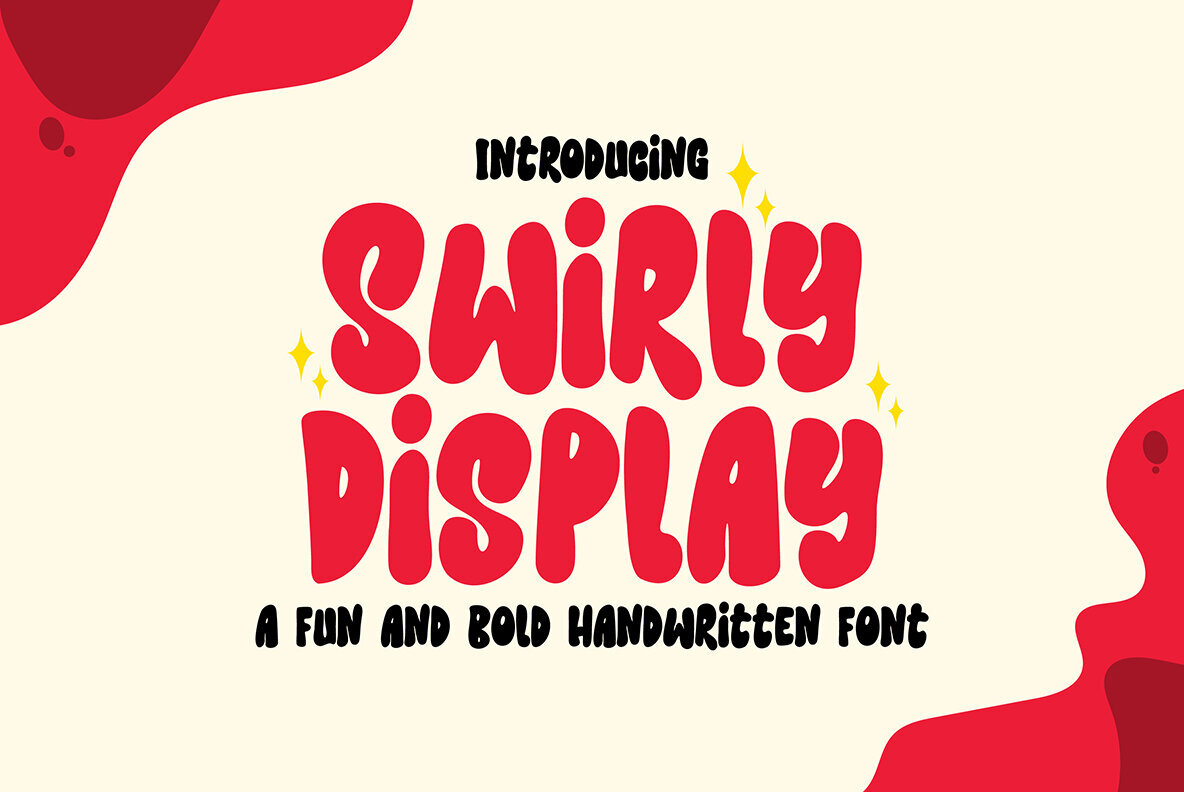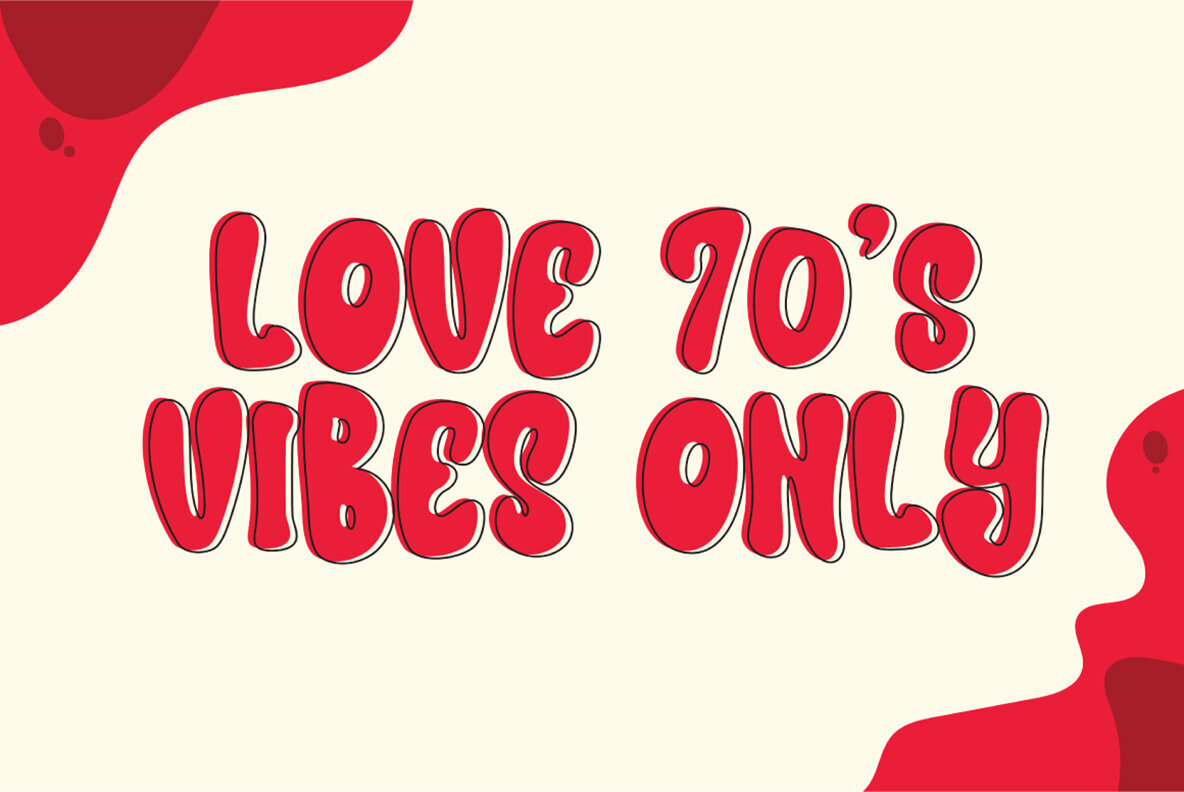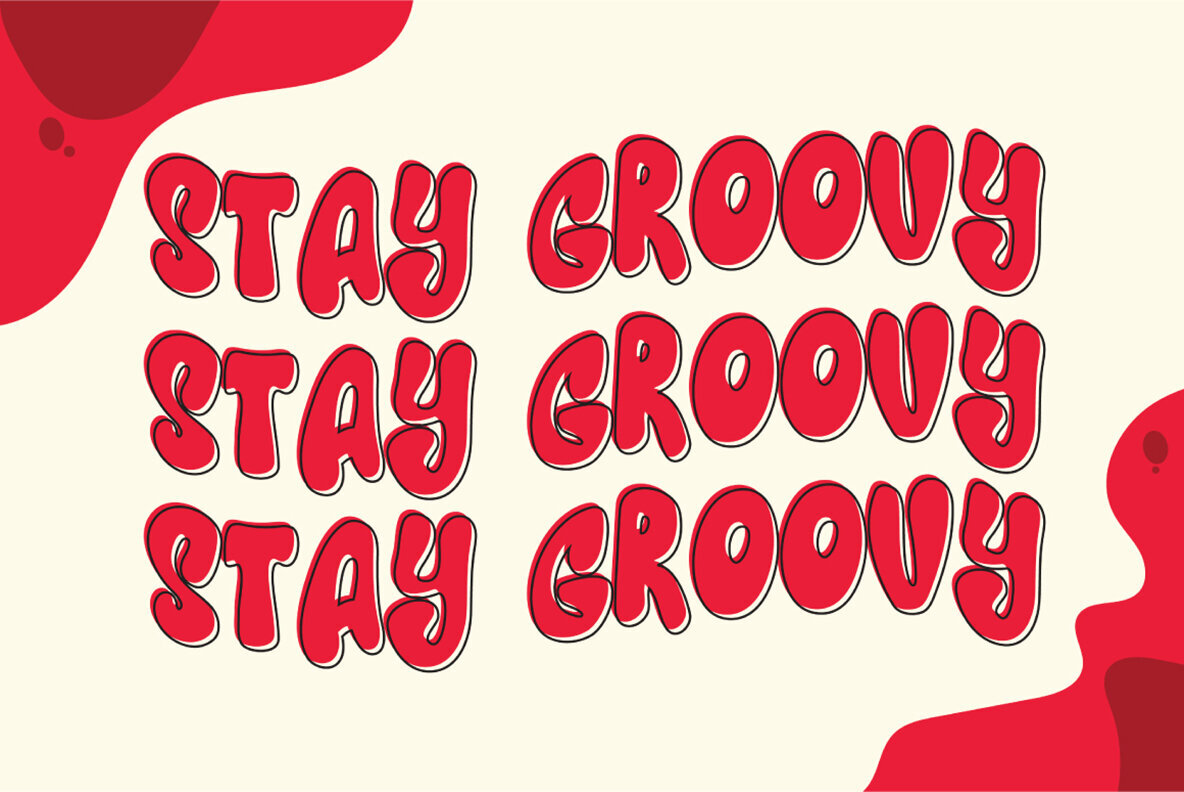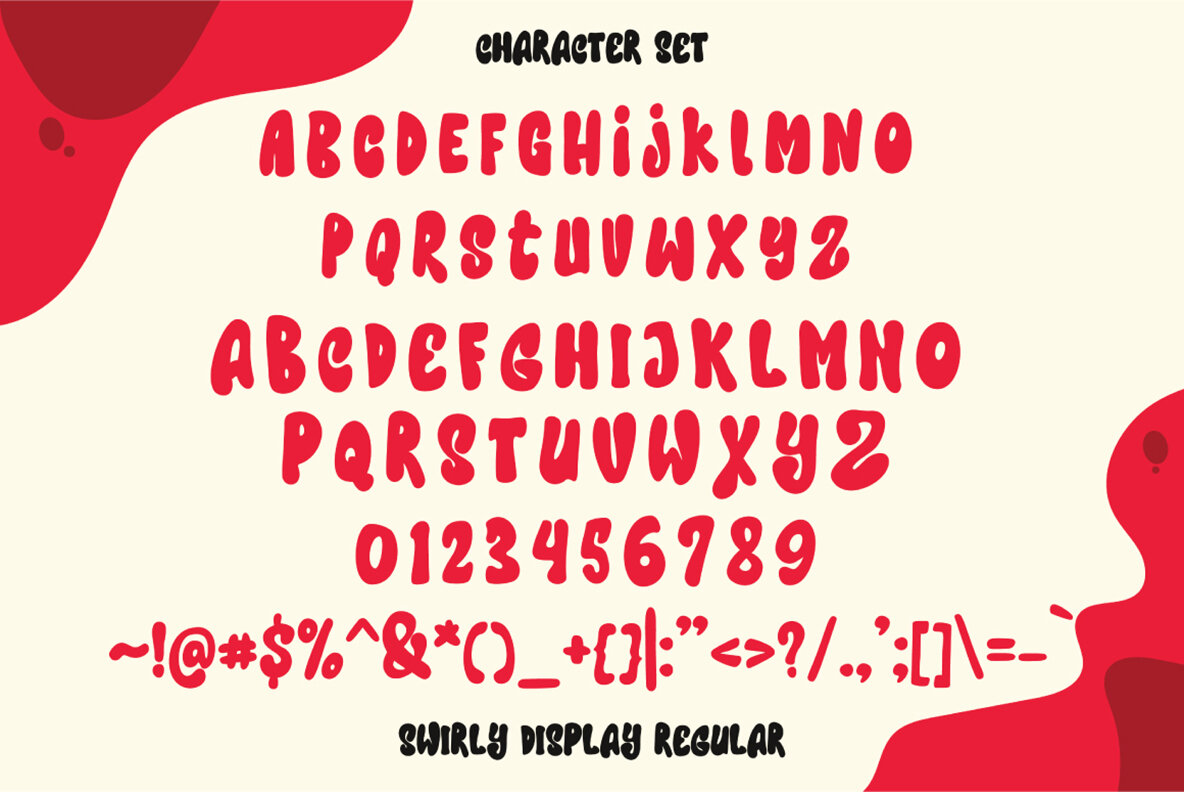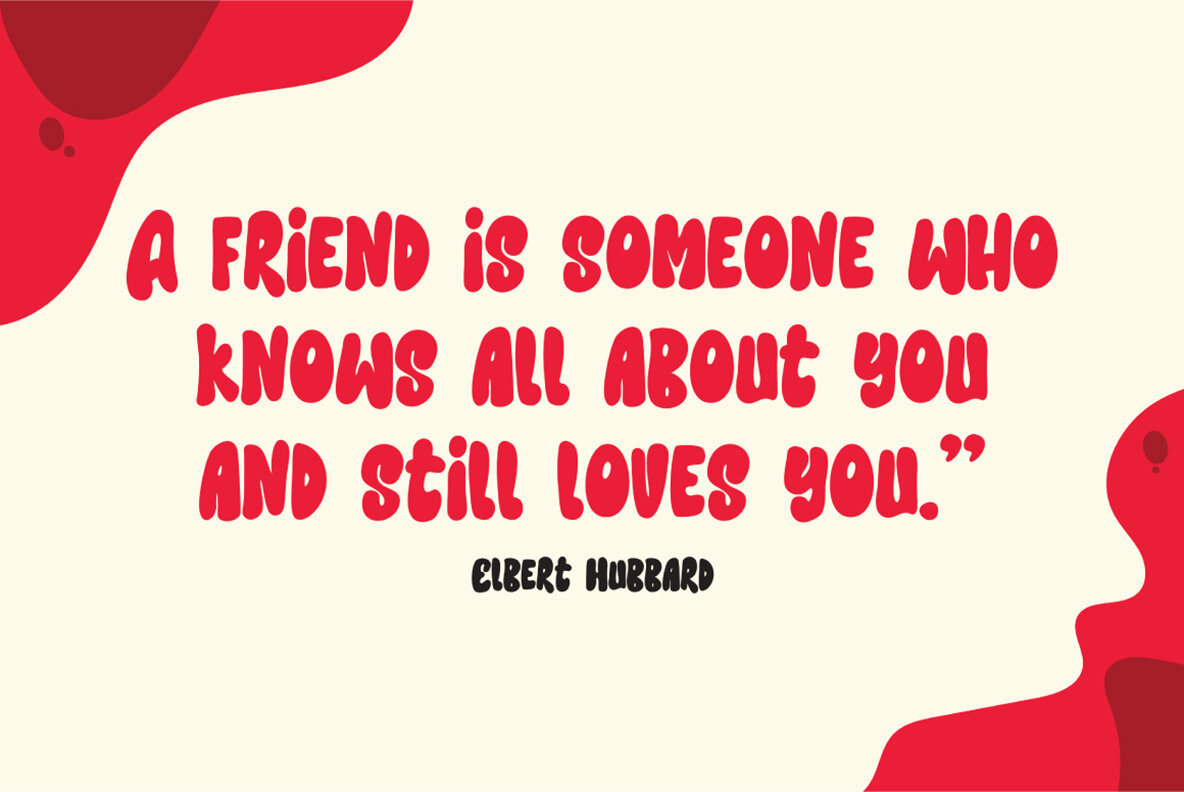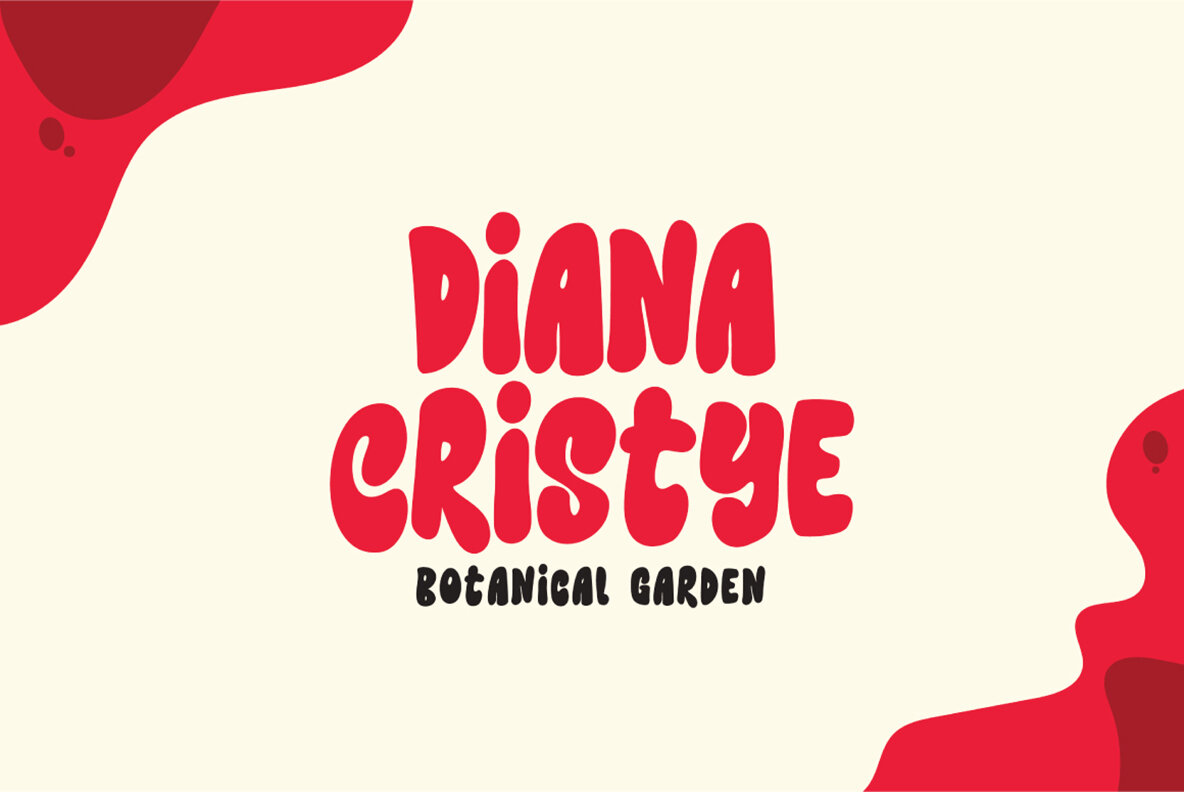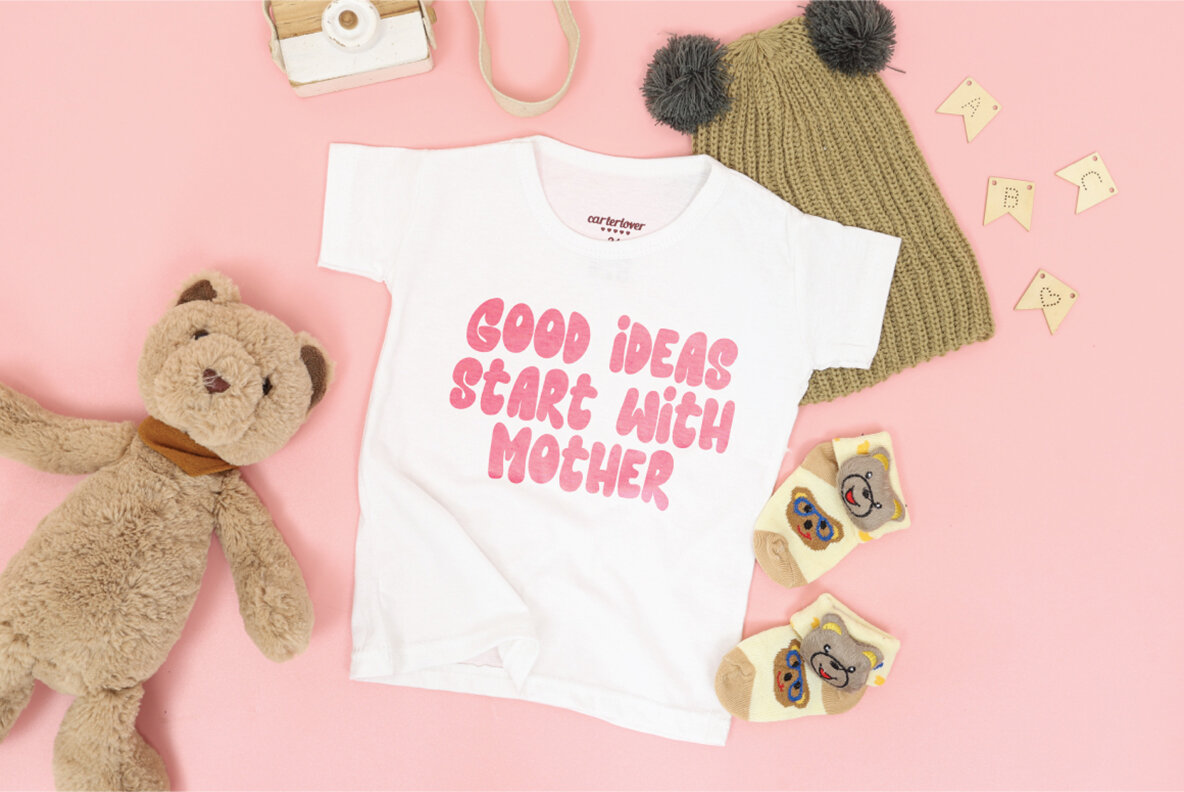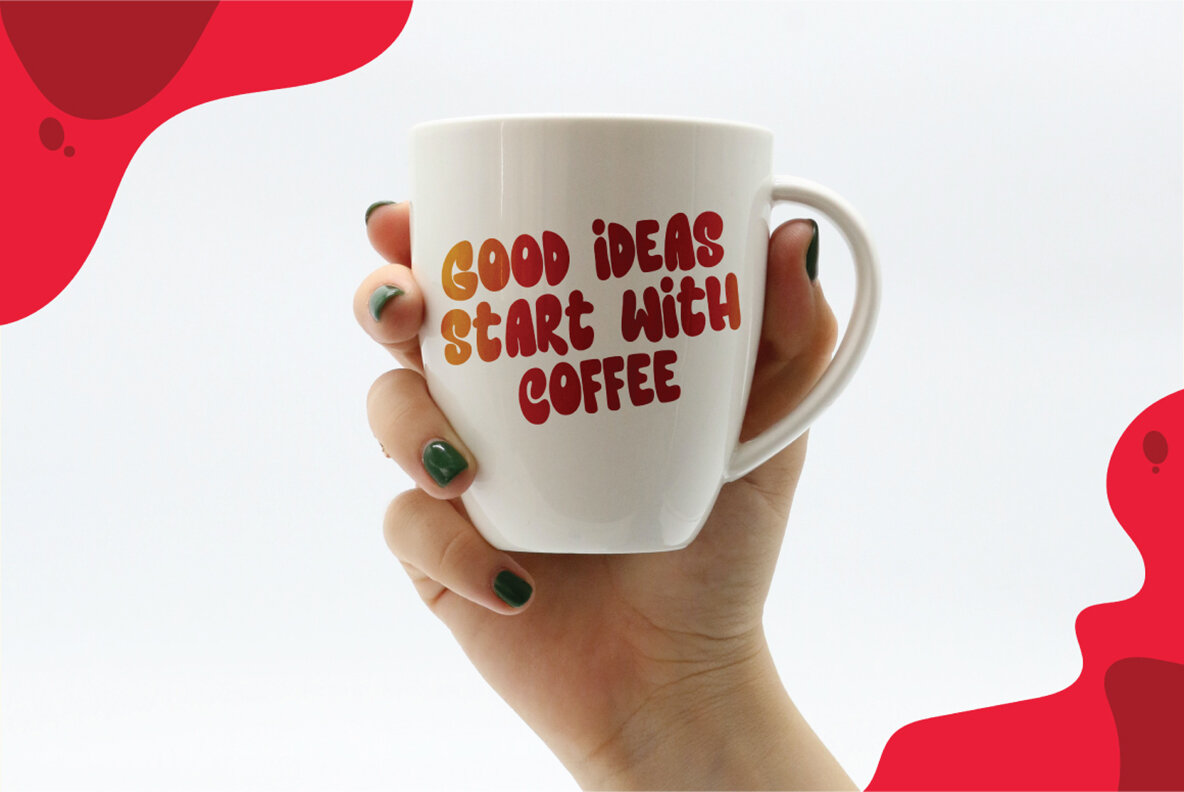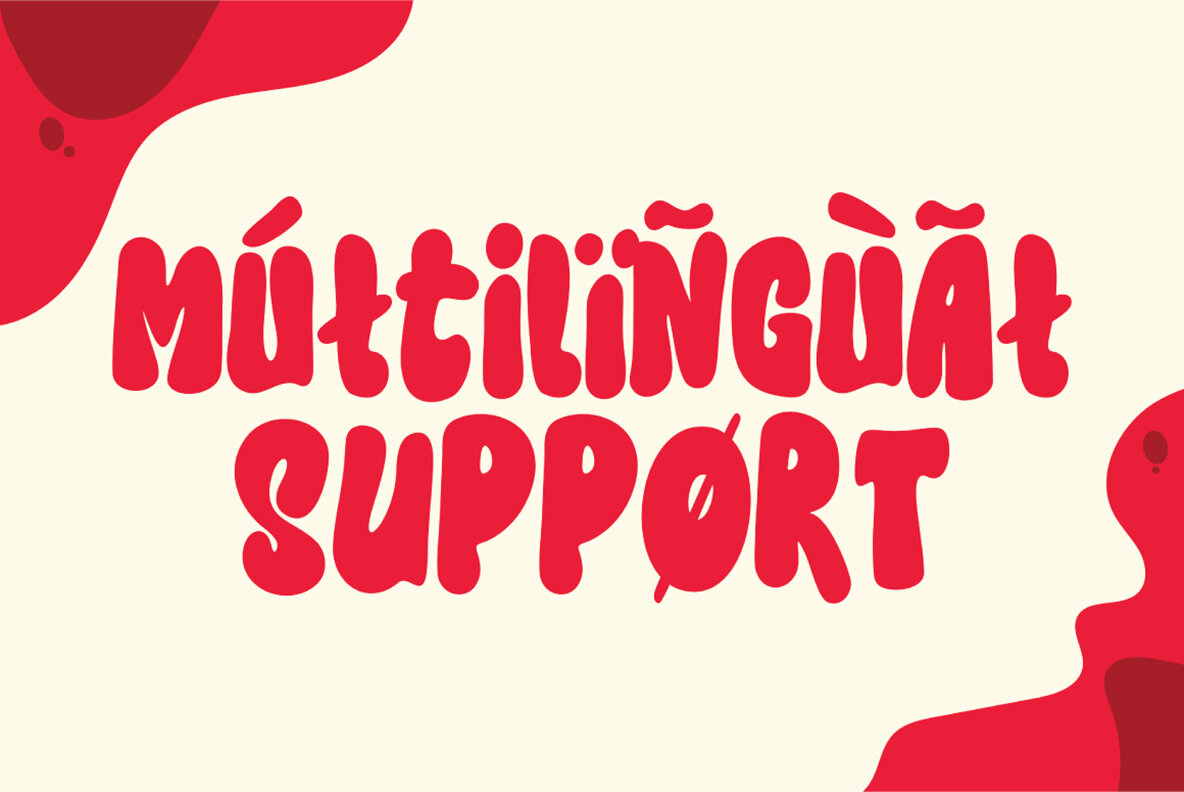
Swirly Font
Swirly Display Regular
Swirly is a display font that exudes playful nostalgia, offering a distinct vintage retro aesthetic ideal for enhancing any design project. This font is perfect for adding a retro flair, making it a striking choice for designers looking to infuse a sense of vintage charm into their work.